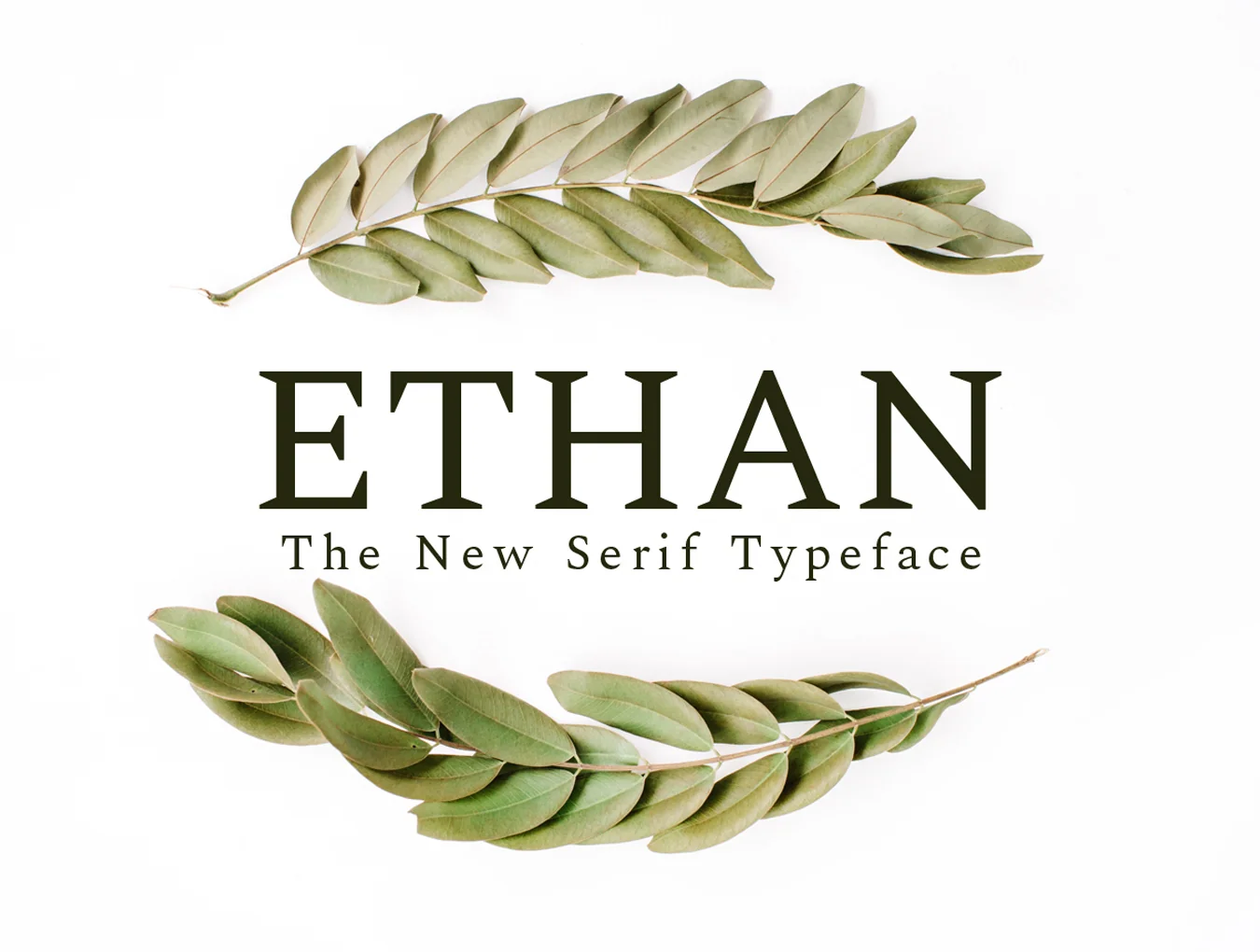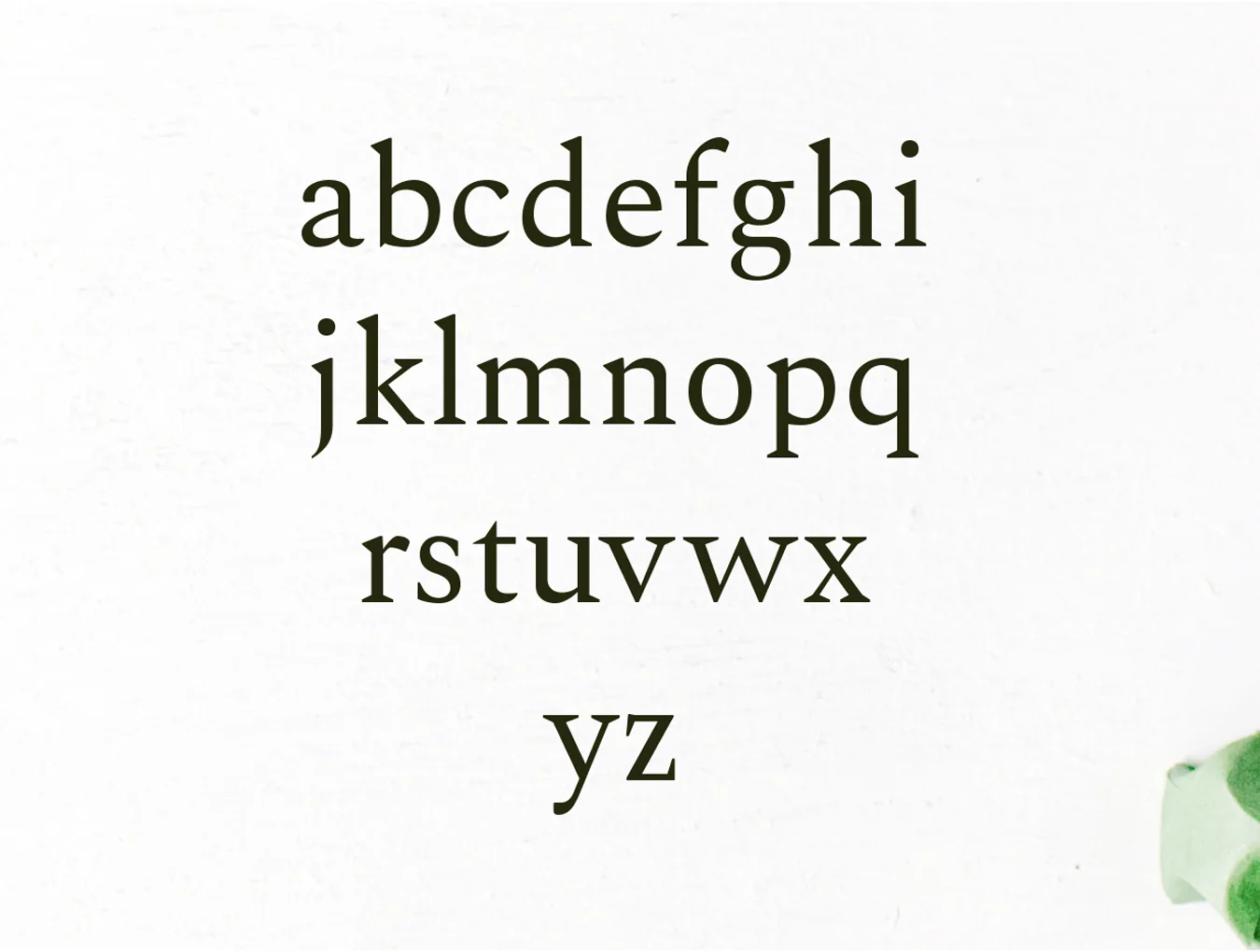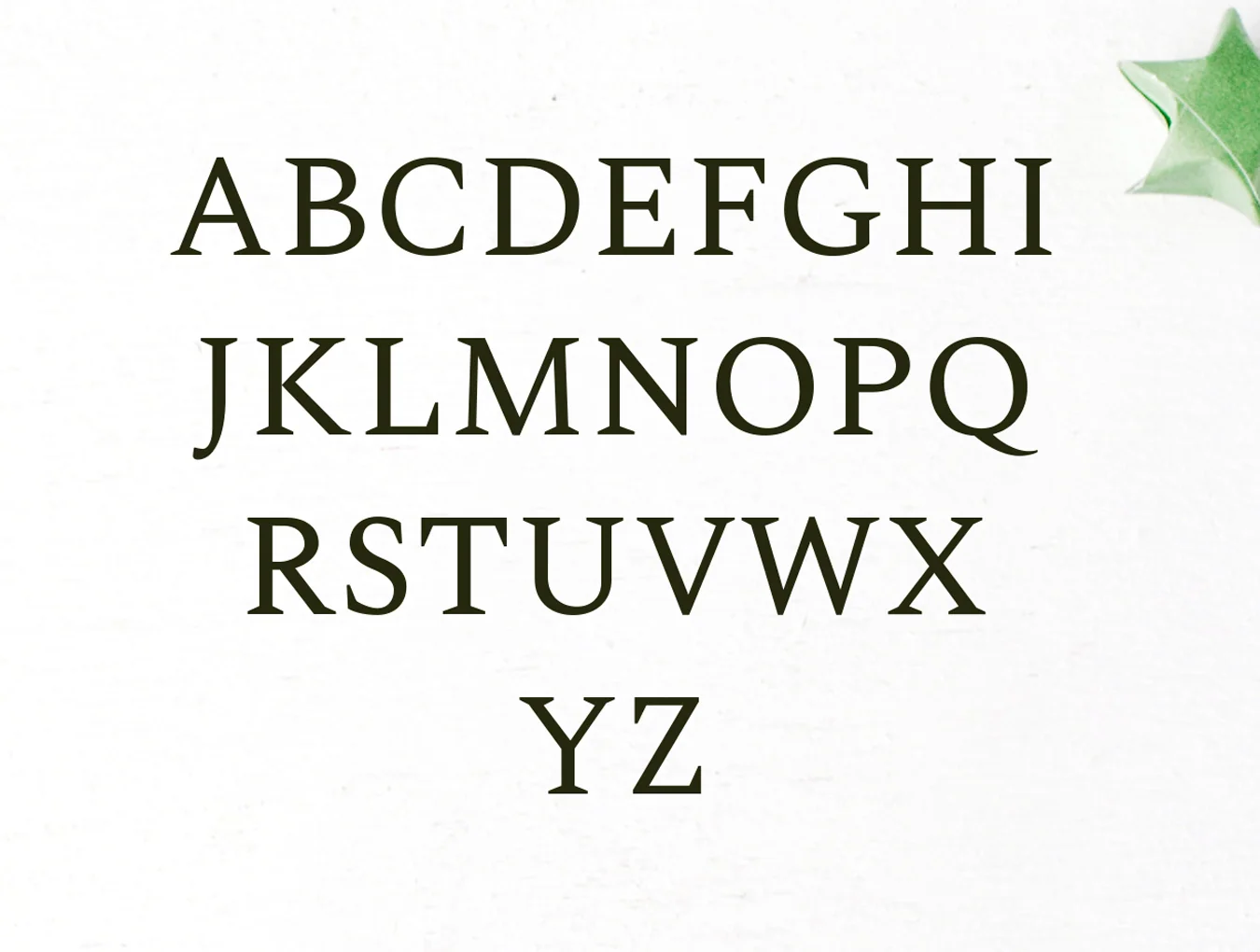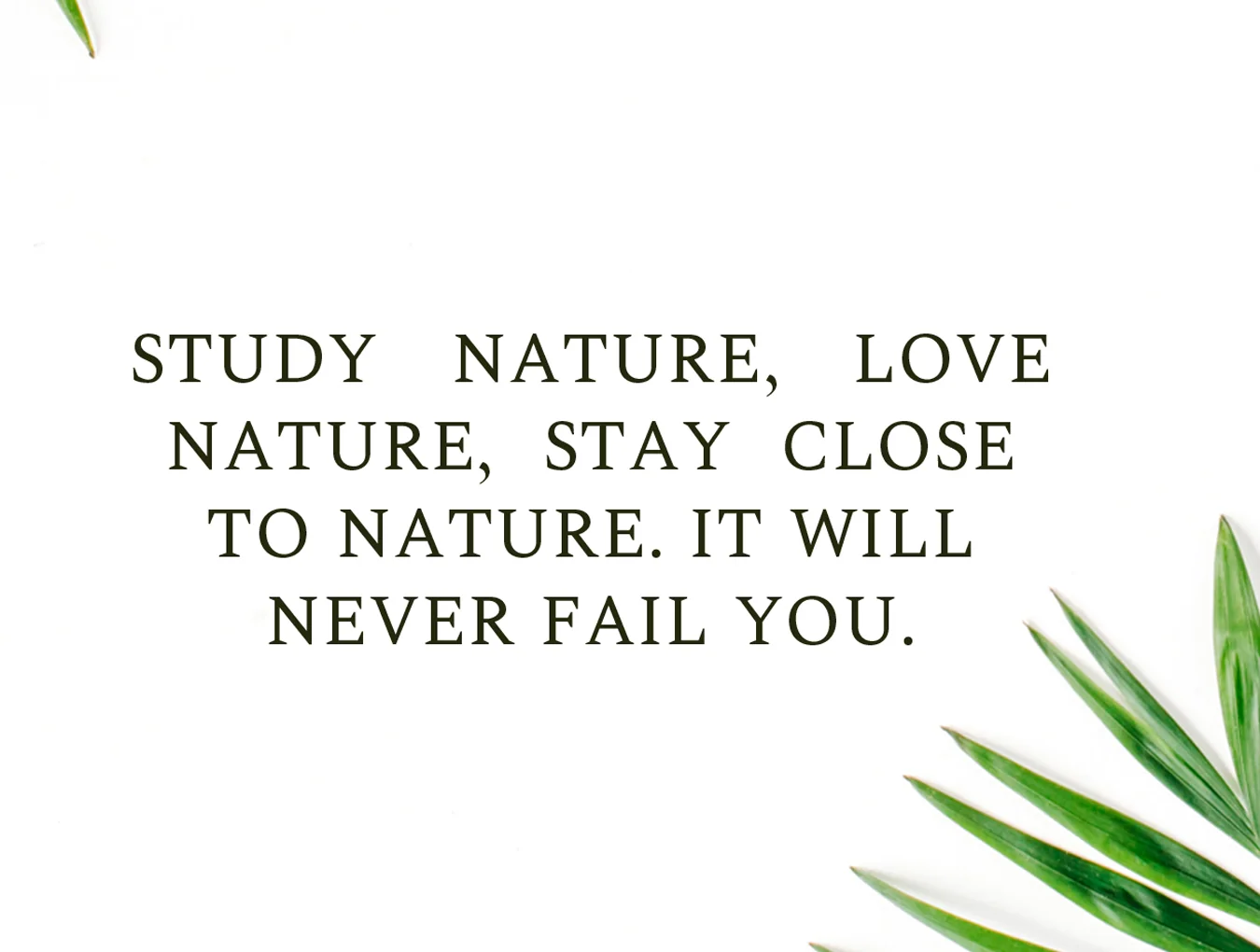
Ethan The New Serif Typeface
Ethan New Serif Six-Font Family Bundle
Serif-style font
238 character glyphs
Regular, Light, and Medium styles
Outline, Bold, and Black styles
Ethan Serif Font Family is an elegant decorative serif with 6 weights and a distinctive modern style. Ideal for striking logos, titles, layouts, body text, and both large or small designs. It shines in all caps with wide spacing for a refined look, or in mixed case for a timeless feel.